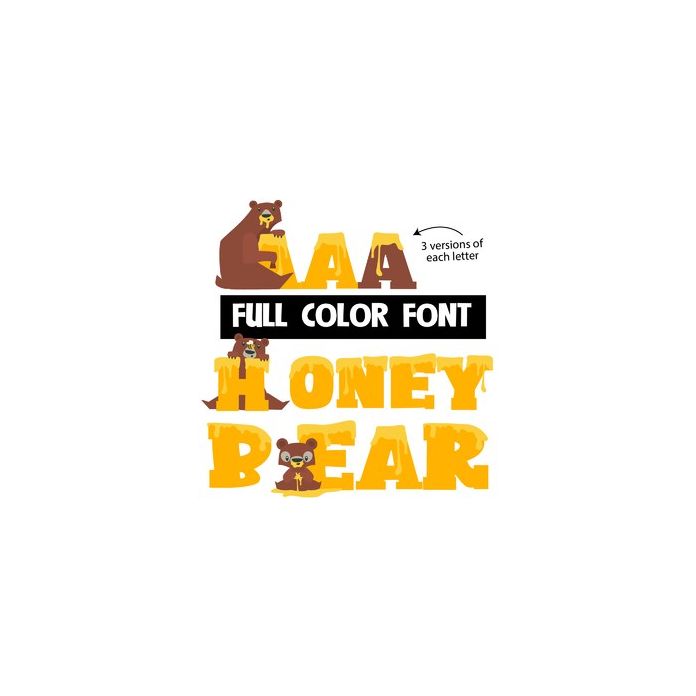
This full-color font features bears on the uppercase and honey dripping letters on the lowercase with an alt lowercase in brown you can access through Silhouette's glyph map.